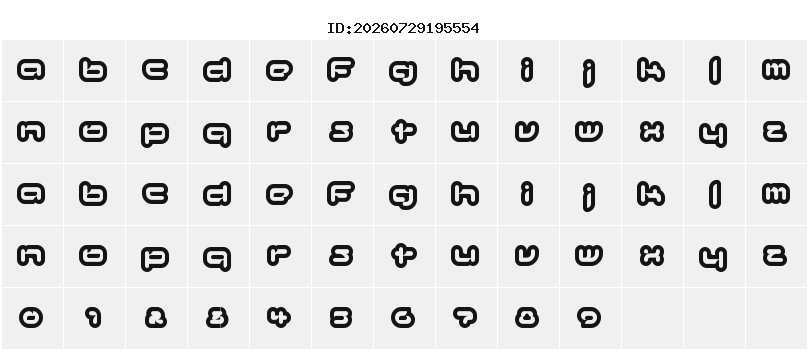
• Font Name: Kinkimono
• Full Font Name: Kinkimono
About Kinkimono.ttf
Kinkimono.ttf is a modern, elegant sans-serif font designed for ultimate readability and visual harmony. Perfect for branding, headlines, web design, and print materials.